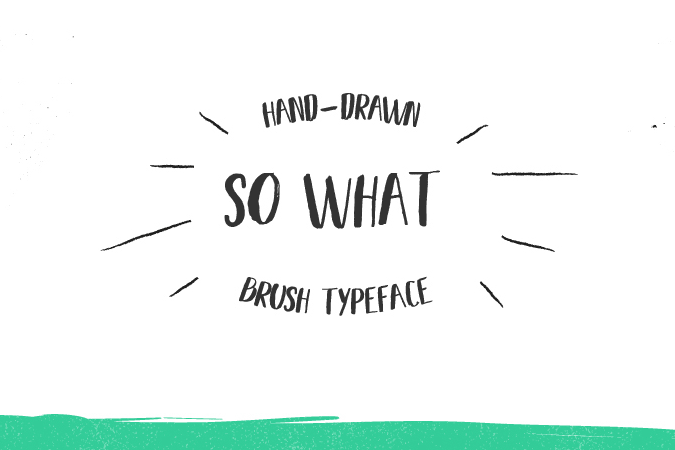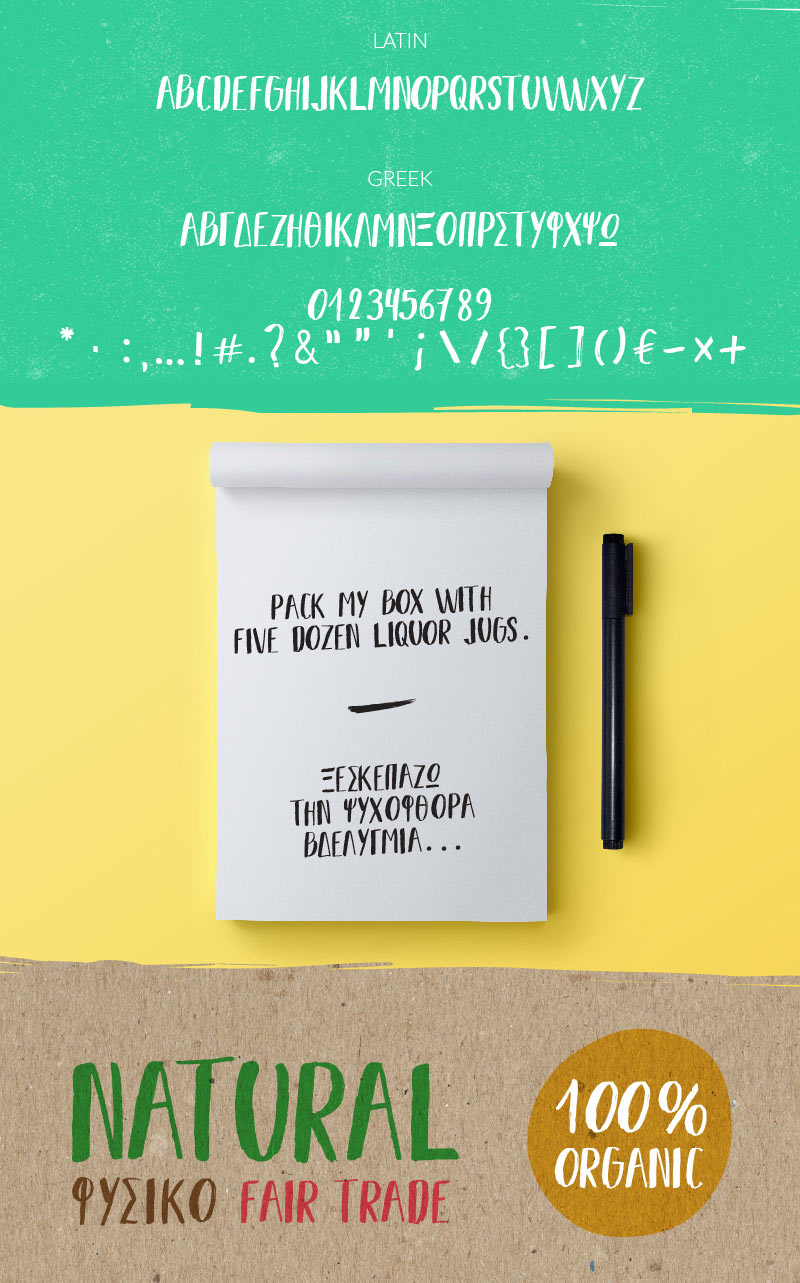
SO WHAT is a free brush font and was the first attempt by the author which was designed with brush pen. It’s a uppercase only font and comes with latin and greek characters. According to the author, the rough and imperfectness of the font characters give a personal and a naturally hand drawn look to the text that you applied to your design.
- Designer: The Luminous Pill
- Category: Calligraphy/Brush, Web Font